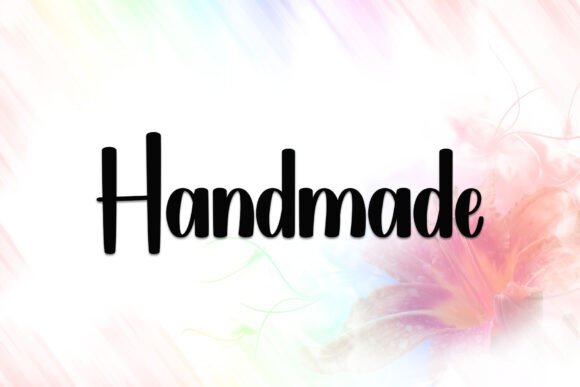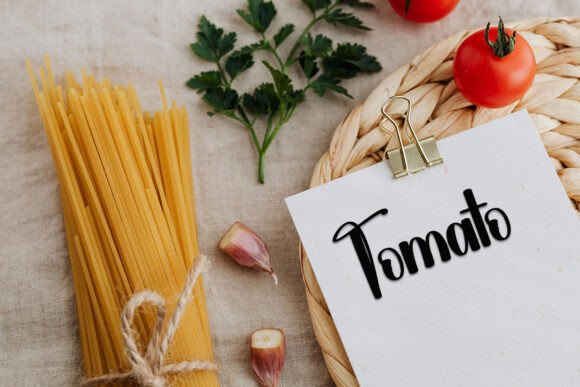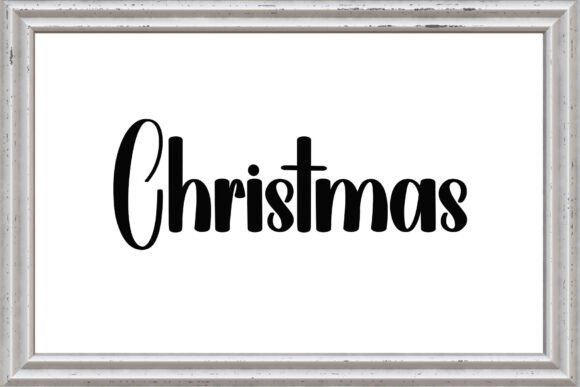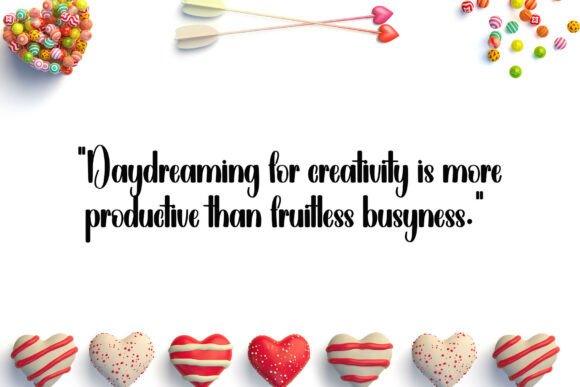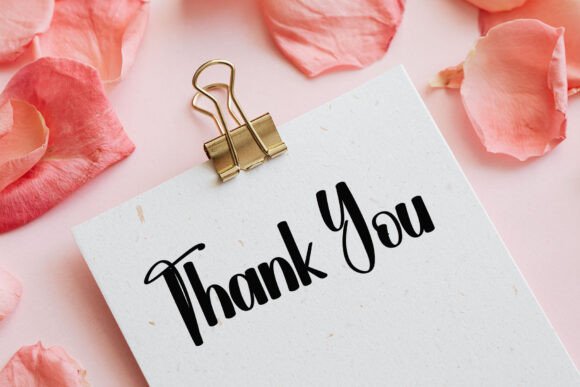
Introduction to Smart Barbie Font
As you sit down to plan your holiday designs, do you ever wish you had the perfect font to capture the magic of the season? I know I do! There’s something about the twinkling lights, the warm fireplaces, and the joyous sounds of laughter that just begs to be expressed through beautiful typography. And that’s exactly where the Smart Barbie Font comes in – a festive and merry typeface that’s sure to bring a smile to your face and a touch of whimsy to your designs.
With its decorative elements and high-quality design, the Smart Barbie Font is a must-have for any designer looking to add a little extra sparkle to their creative projects. Whether you’re working on a greeting card, a gift tag, or a holiday-themed website, this font is sure to bring a cheerful and nostalgic ambiance to your words. And the best part? It’s available for free download, complete with a transparent background and all the amazing glyphs and ligatures you need to bring your design to life.
As a valuable resource for designers, the Smart Barbie Font is a game-changer for anyone looking to create high-quality, professional-looking designs without breaking the bank. So why settle for a generic font when you can have a font that’s truly one-of-a-kind? Download the Smart Barbie Font today and get ready to add a little bit of magic to your next creative project!
Key Features of Smart Barbie Font
- High-quality, free downloadable font designed for creative projects and design resources, perfect for adding a touch of elegance and sophistication.
- Includes a wide range of characters, including uppercase and lowercase letters, numbers, and special symbols, making it an ideal choice for various design applications.
- Unique characteristic: The Smart Barbie Font features a unique, hand-drawn design style that adds a touch of whimsy and playfulness to any creative project.
Honest Review: Smart Barbie Font
I recently had the chance to work with the Smart Barbie Font, and I’m excited to share my honest thoughts on this design resource.
- The Smart Barbie Font is a high-quality design resource that’s perfect for creative projects.
- It’s available for free download, making it an excellent option for designers on a budget.
- The font features a transparent background, which makes it easy to work with and customize.
- The design is playful and fun, making it ideal for projects that require a youthful and energetic vibe.
- The font may not be suitable for formal or professional projects due to its playful nature.
- The design is quite bold, so it may not be the best choice for projects that require subtlety.
Overall, I was impressed with the Smart Barbie Font. It’s a high-quality design resource that’s perfect for creative projects, and its free download option makes it an excellent choice for designers on a budget. While it may not be suitable for all types of projects, it’s definitely a great addition to any designer’s toolkit.
The Smart Barbie Font is a high-quality, free download design resource that offers a unique and creative twist on traditional fonts. With a transparent background, this font is perfect for designers looking to add a touch of whimsy to their projects.
Tips for Getting the Most Out of Smart Barbie Font
1. Experiment with different font sizes and styles to create a unique look.
2. Use the transparent background to create a sense of depth and dimension.